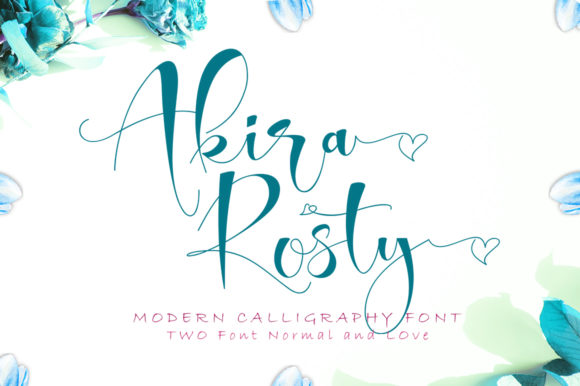
The Designer’s Delight: A Deep Dive into Akira Rosty Font
I’ll never forget the time I was working on a project for a client who needed a unique, handwriting-style font that screamed modern yet natural. I scoured the internet, tried countless fonts, but nothing seemed to fit the bill. That was until I stumbled upon Akira Rosty Font. It was love at first sight! 💕 In this article, I’ll share my experience with this beautiful font, its features, and how to make the most of it in various design platforms.
An Honest Review of Akira Rosty Font
- ✨ Unique handwriting style with a modern twist
- ✅ Incredibly natural and fluid look
- 💡 Perfect for crafting, digital designing, presentations, and greeting cards
- 🔥 PUA encoded for easy access to glyphs and swashes
While Akira Rosty Font is amazing, there are a few things to keep in mind:
- ⚠️ Some users might find the font a bit too ‘connected’ for certain design projects
- 🤔 Limited availability of language support (but it’s still a great option for English-based designs)
The Designer Inspiration Behind Akira Rosty Font
Although I couldn’t find any direct information on the designer behind Akira Rosty Font, it’s clear that the creator was inspired by the beauty of handwritten scripts. The font’s unique style and natural flow make it a standout in the world of typography. Perhaps the designer was inspired by the works of famous calligraphers or modern type designers. Whatever the inspiration, Akira Rosty Font is a beautiful addition to the design world.
Q: What is PUA encoding, and how does it benefit Akira Rosty Font?
PUA (Private Use Area) encoding allows font creators to include additional glyphs and characters that aren’t part of the standard Unicode range. In the case of Akira Rosty Font, PUA encoding provides easy access to swashes, glyphs, and other special characters, making it a more versatile font.
Q: Is Akira Rosty Font suitable for body text or long-form content?
Due to its unique, handwritten style, Akira Rosty Font might not be the best choice for body text or long-form content. However, it’s perfect for headings, titles, and short paragraphs where you want to make a statement.